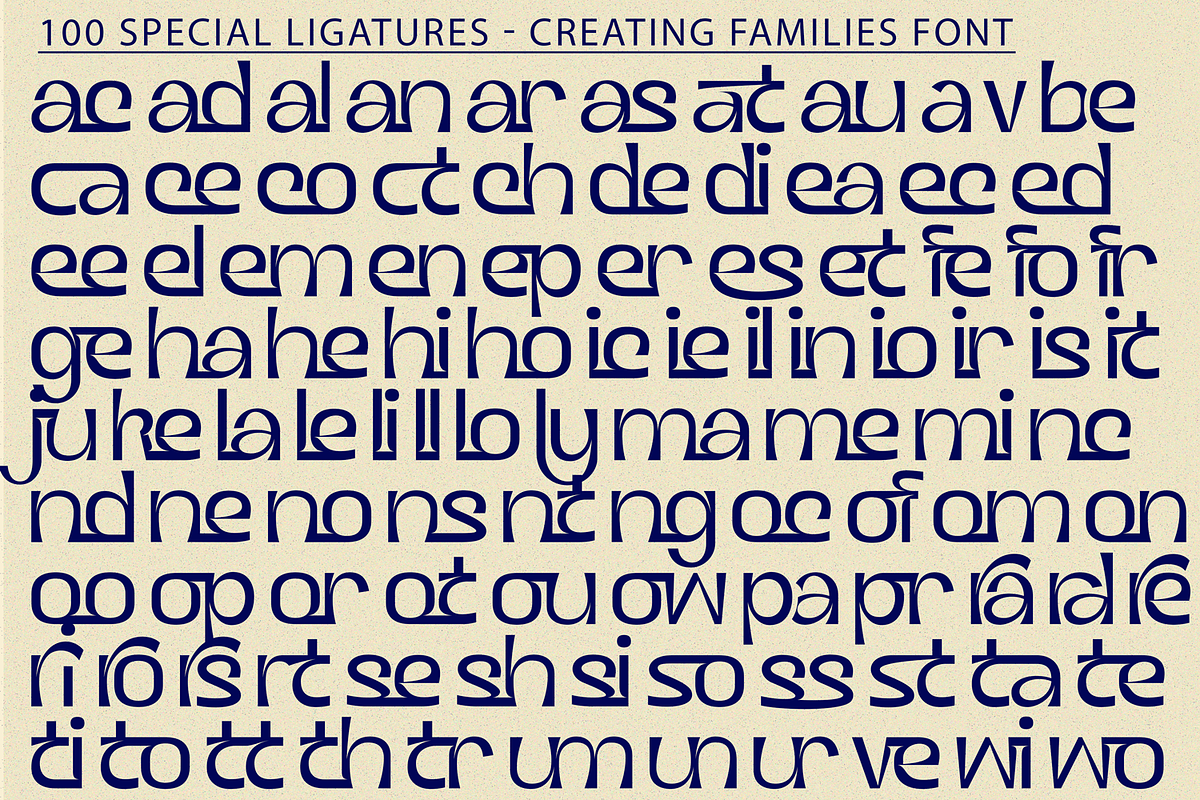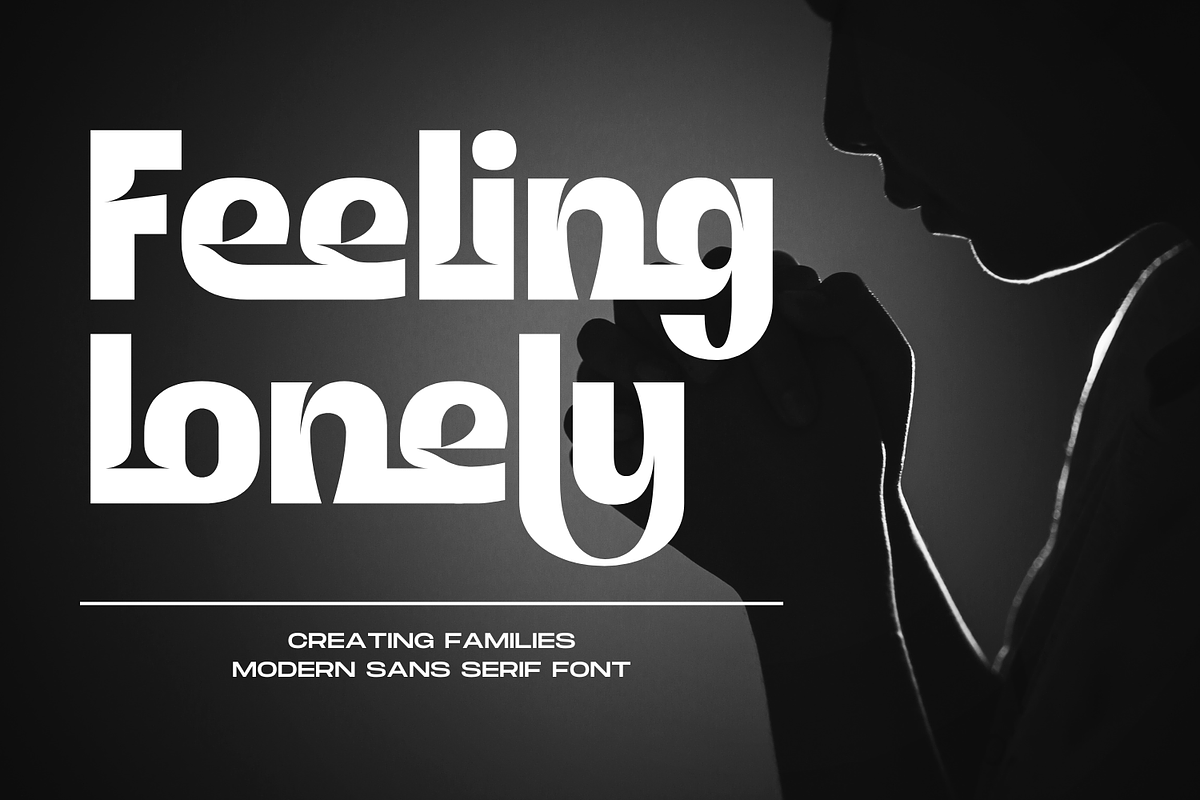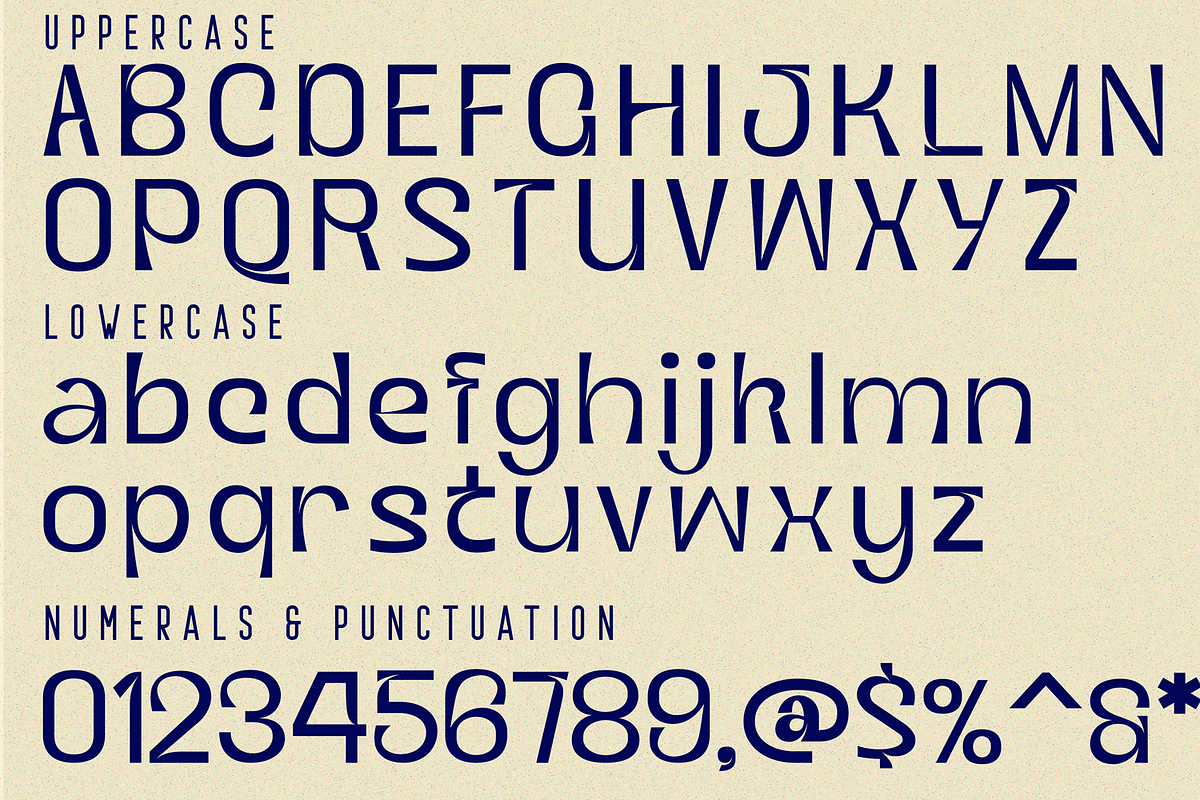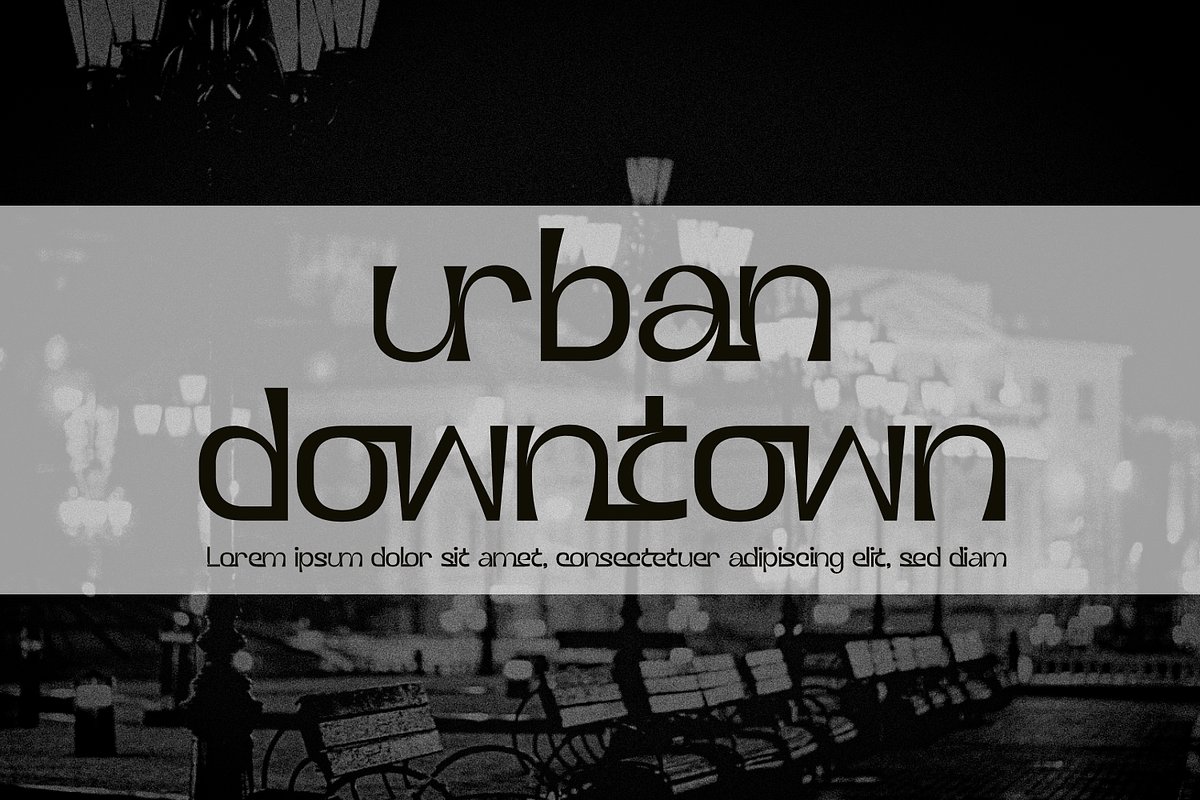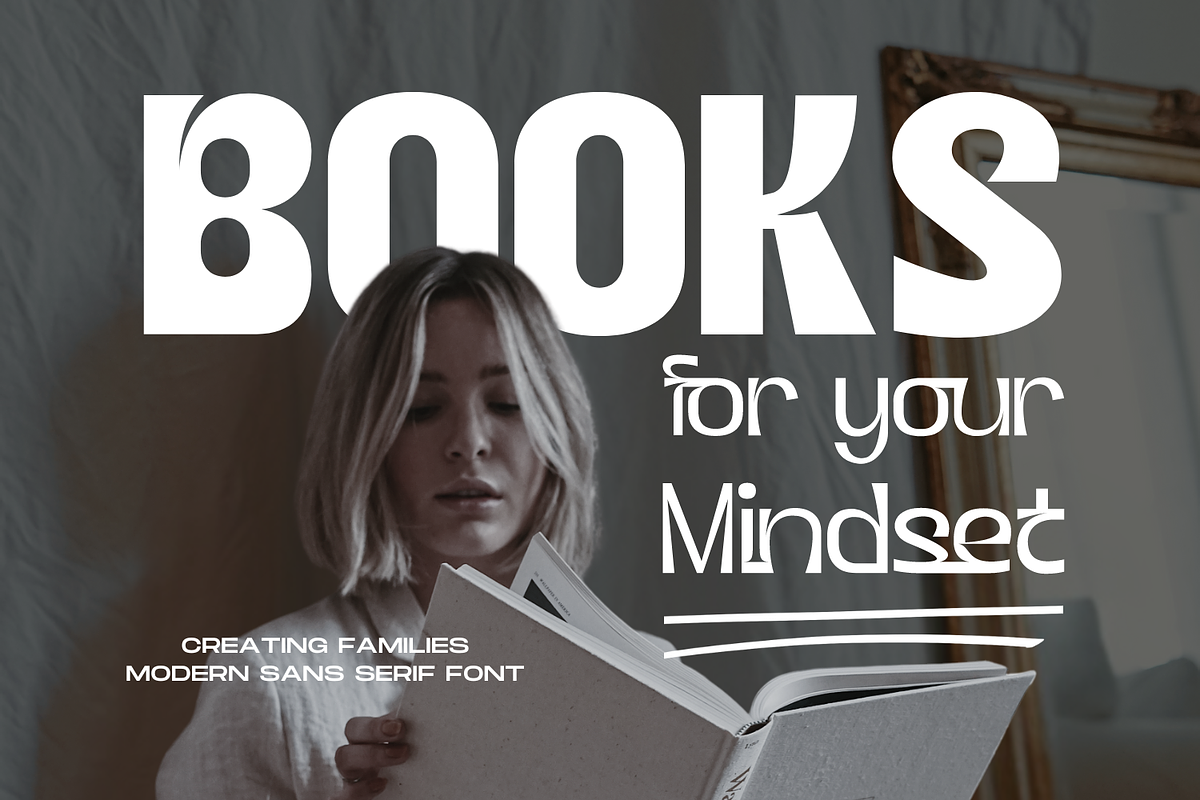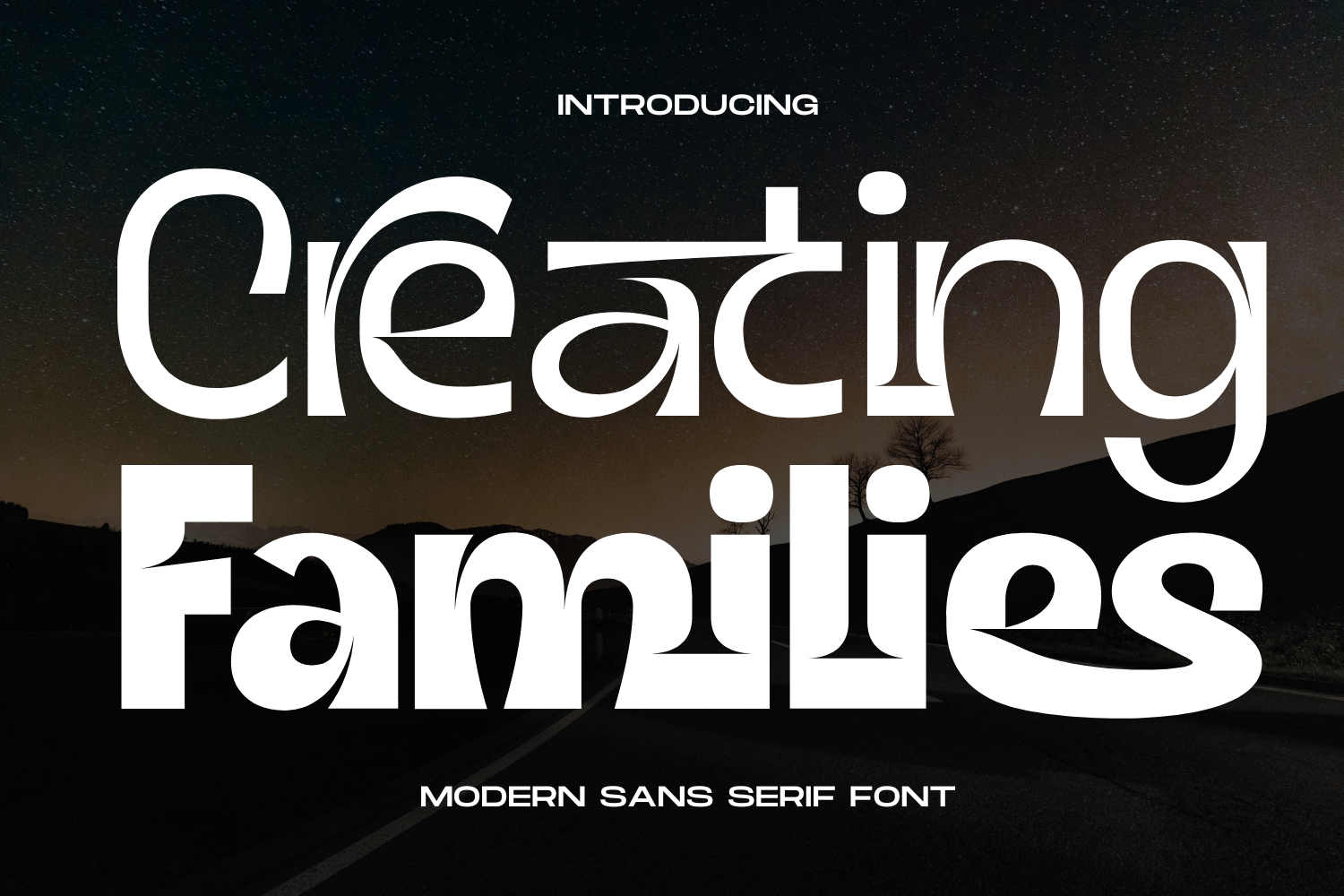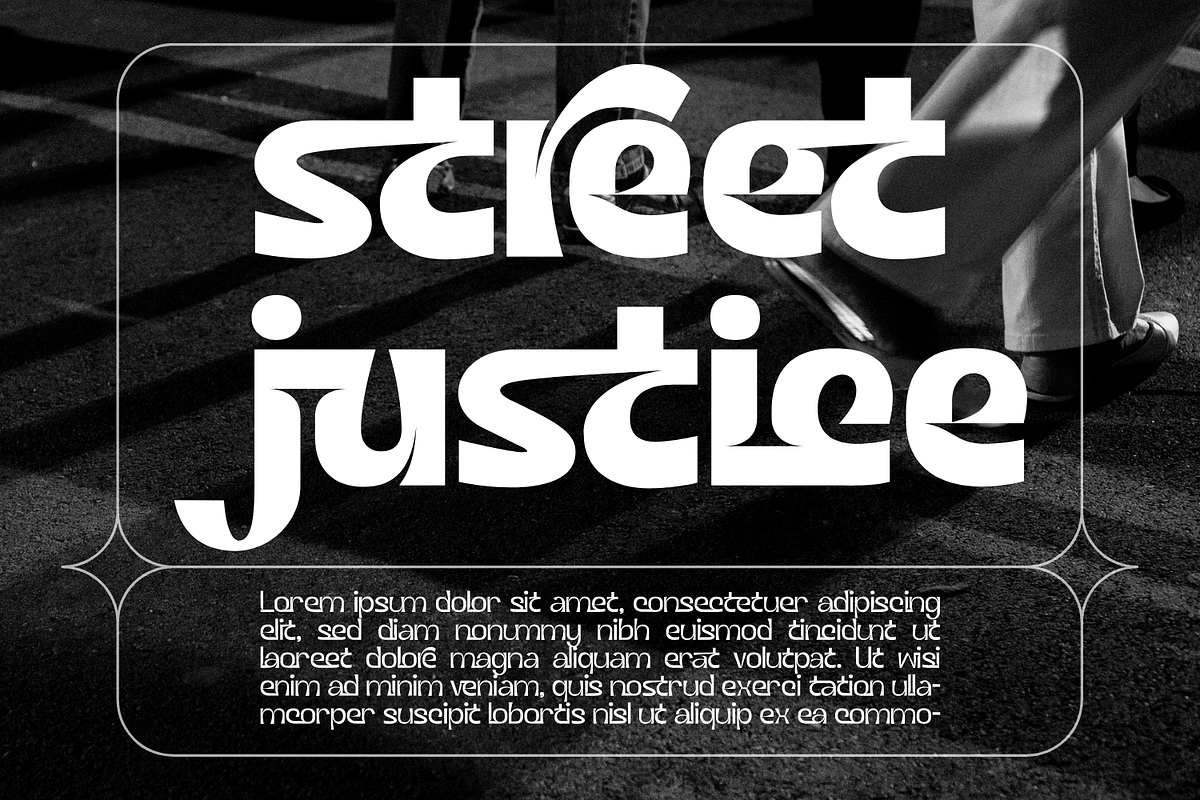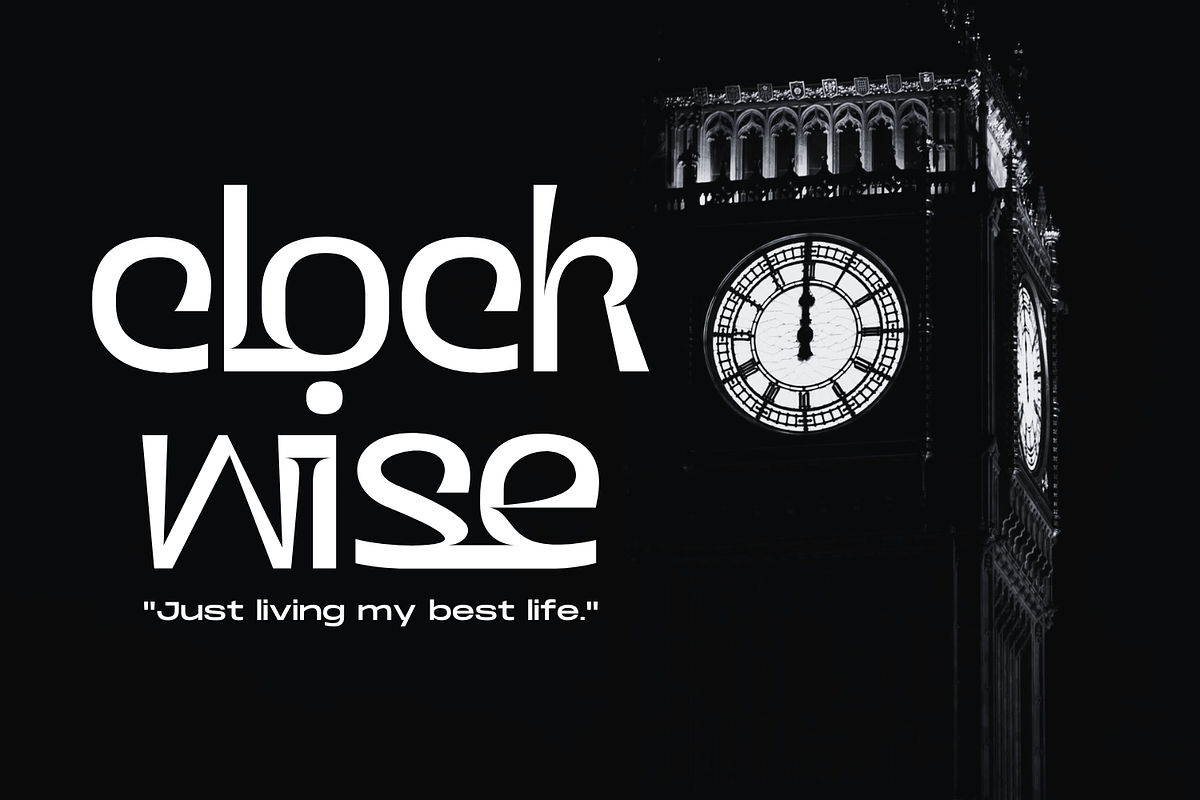
Creating Families Font
Creating Families Font is a modern display typeface that blends bold geometric forms with smooth, clean lines. Its sleek design is perfect for making a striking impact in both print and digital media. It’s a design tool that elevates brands, making them both distinctive and memorable. Its versatility allows it to be used for logos, modern websites, packaging, business cards, and more, seamlessly adapting to various styles and industries.
Creating Families was built with OpenType features and includes 100 ligatures, alternate, numbers, punctuation, and it also supports other languages.
ac ad al an ar as at au av be ca ce ch co ct de di ea ec ed ee el em en ep er es et fe fo fr ge ha he hi ho ie ic il in io ir is it ju ke la le li ll lo ly ma me mi nc nd ne ng no nt ns oc of om on oo op or ot ou ow pa pr ra rd re ri ro rs rt se sh si so ss st ta te th ti to tr tt um un ur ve wi wo